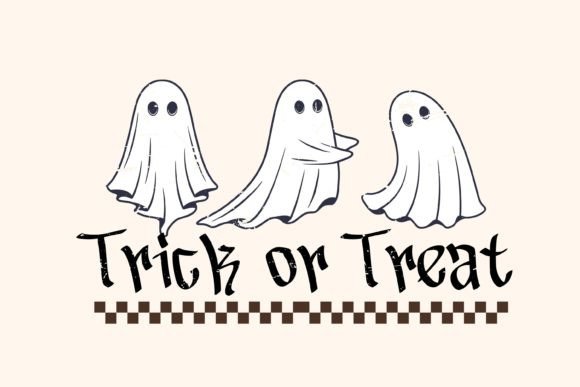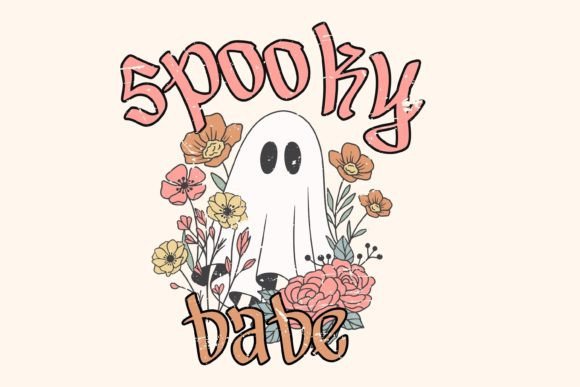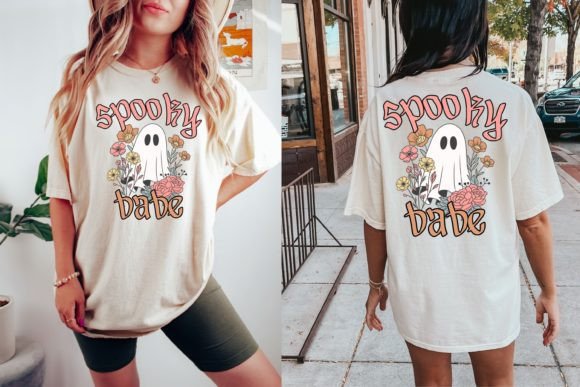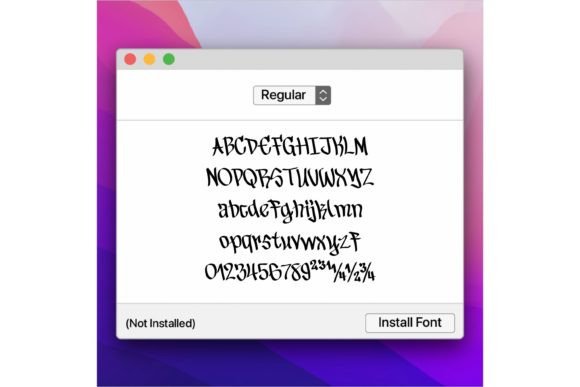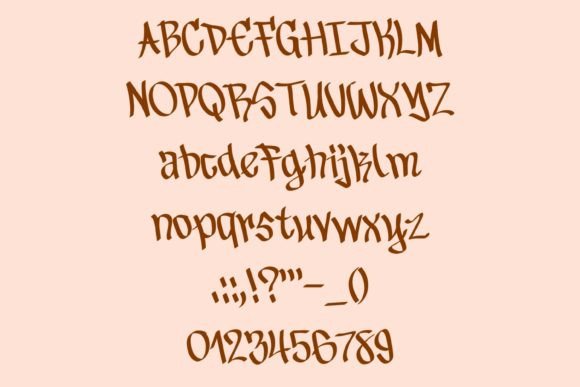
Unleash the Spooky Charm with Ghost Story Font: A Retro Delight for Your Designs
As the spookiest time of the year approaches, designers and crafters are on the lookout for fonts that capture the essence of Halloween. If you’re searching for a font that’s both cute and assertive, look no further than the Ghost Story Font. This incredibly charming display font is perfect for adding a touch of youth and joy to your party invitations, gatherings, or any design that needs a dash of whimsy.
What is Ghost Story Font?
Ghost Story Font is a retro-style display font that’s designed to evoke the nostalgia of classic Halloween decorations and party invites. Its unique blend of playfulness and spookiness makes it an ideal choice for designers and crafters who want to create eye-catching designs that stand out from the crowd.
Key Features of Ghost Story Font
- Cute and Assertive: Ghost Story Font strikes the perfect balance between being adorable and attention-grabbing. Its bold and playful design ensures that your text won’t go unnoticed.
- Retro Aesthetic: Inspired by vintage Halloween decorations and party invites, this font brings a touch of nostalgia to your designs.
- Versatile: Whether you’re designing party invitations, flyers, or social media graphics, Ghost Story Font can be used for a wide range of projects.
- Easy to Read: Despite its playful design, Ghost Story Font remains easy to read, making it perfect for headlines, titles, and short paragraphs.
Uses for Ghost Story Font
Ghost Story Font is incredibly versatile and can be used for various design projects, including:
- Party Invitations: Create spooky-ooky invitations for Halloween parties, birthday bashes, or themed gatherings.
- Gatherings and Events: Use Ghost Story Font to design eye-catching posters, flyers, or social media graphics for events, workshops, or conferences.
- Branding and Packaging: Add a touch of whimsy to your brand’s packaging, labels, or marketing materials with this unique font.
- Digital Graphics: Create engaging social media graphics, blog posts, or website headers that showcase your creativity.
Tips for Using Ghost Story Font
To get the most out of Ghost Story Font, follow these tips:
- Pair with Other Fonts: Combine Ghost Story Font with other fonts to create a unique and visually appealing design.
- Experiment with Colors: Try out different color schemes to match your brand’s aesthetic or the mood of your design.
- Play with Size and Style: Experiment with font sizes, styles, and effects to add depth and interest to your design.
Ghost Story Font is a one-of-a-kind display font that’s sure to add a touch of youth and joy to your designs. With its retro aesthetic, cute and assertive design, and versatility, it’s the perfect choice for designers and crafters looking to create eye-catching Halloween-themed designs. So, don’t be afraid to get creative and unleash the spooky charm of Ghost Story Font in your next project!